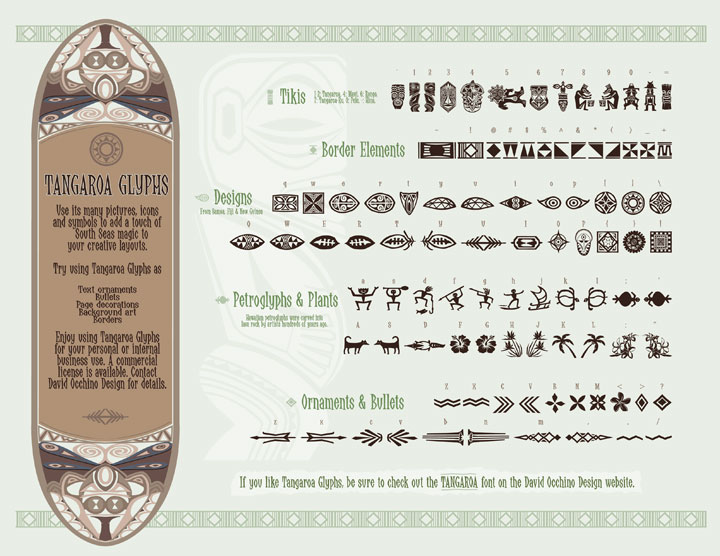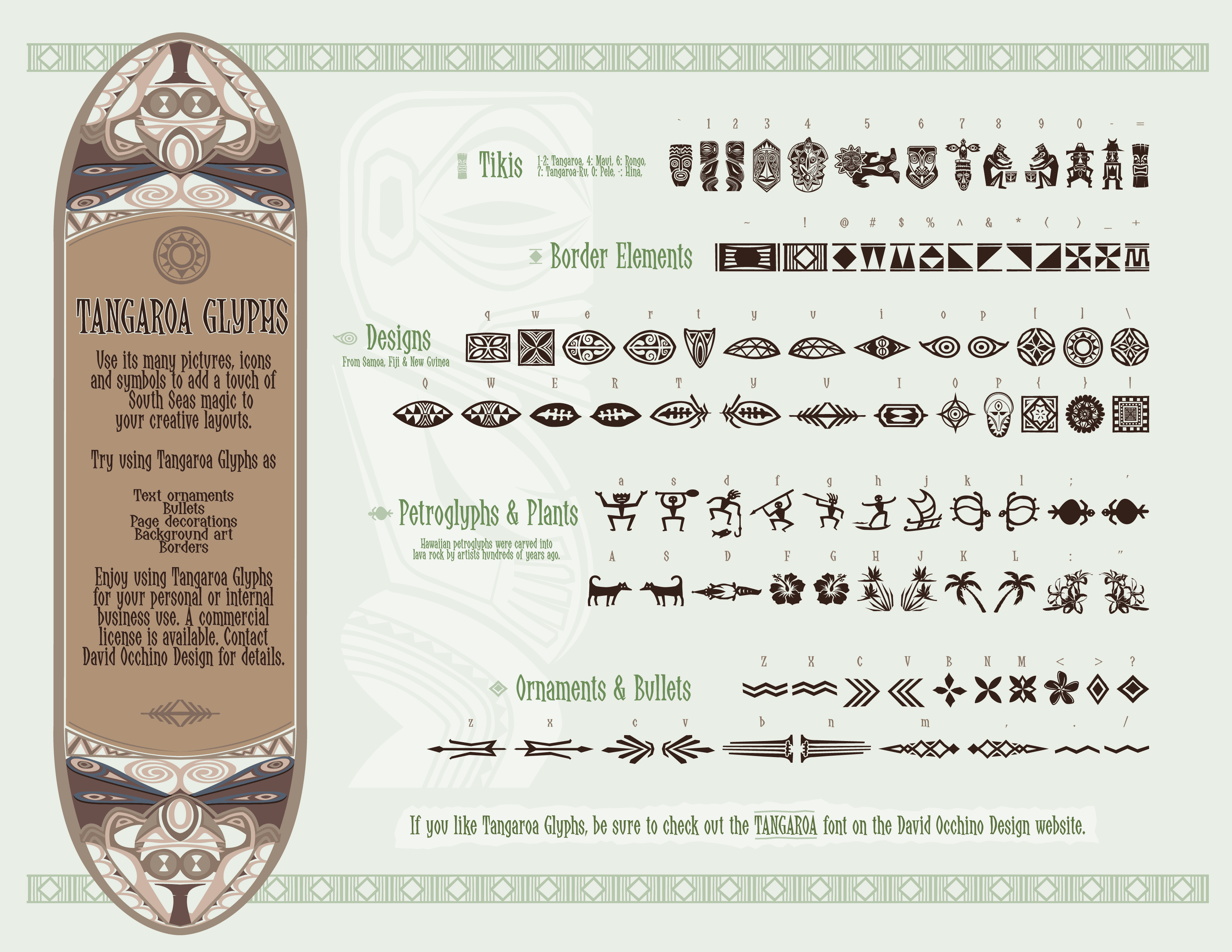
Over 100 free tiki pictures, icons and symbols.
Tangaroa Glyphs includes many pictures, symbols and icons from tropical cultures. Use it to add a touch of the South Seas to your creative layouts. Tangaroa Glyphs was designed by artist David Occhino.